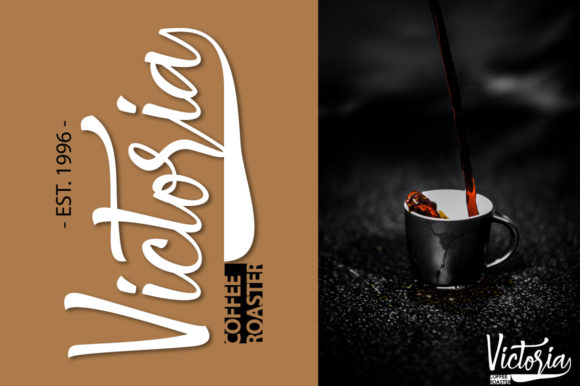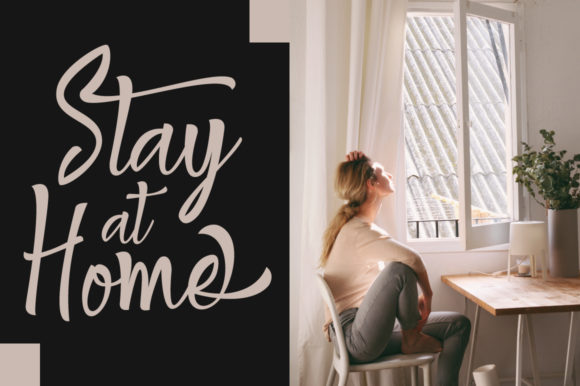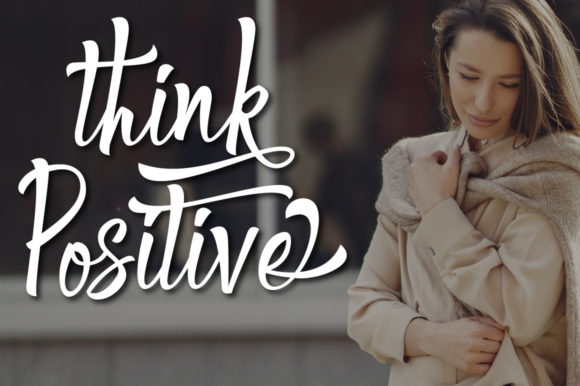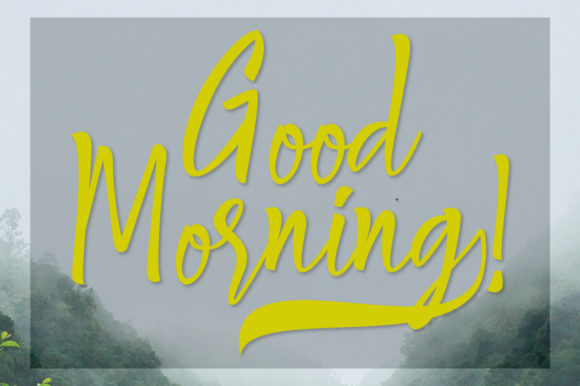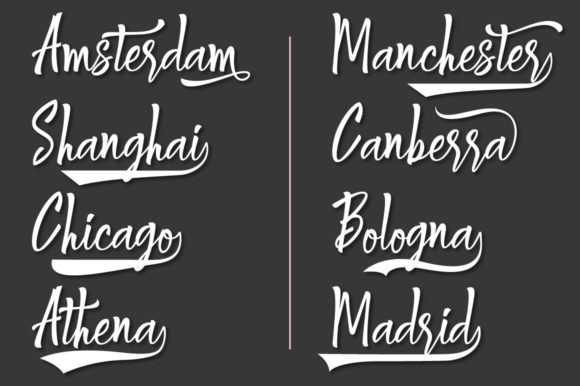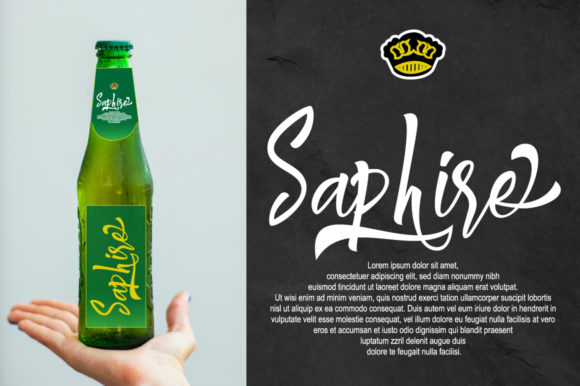
Shantika Font
About Shantika Font
Shantika is a magical handwritten font carefully created with a touch of elegance. This is a beautiful combination of timeless elegance and authentic calligraphy. It features an incredibly classic style, while still keeping a friendly feel.
Whether you’re looking for fonts for Instagram or calligraphy scripts for DIY projects, Shantika will turn any creative idea into a true piece of art!